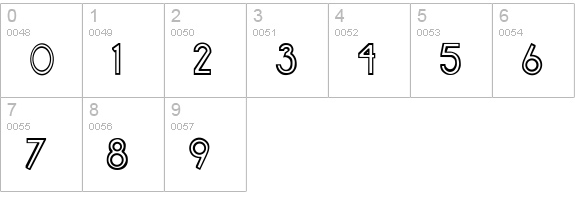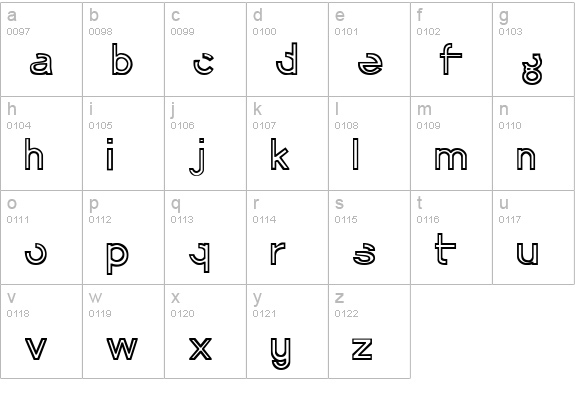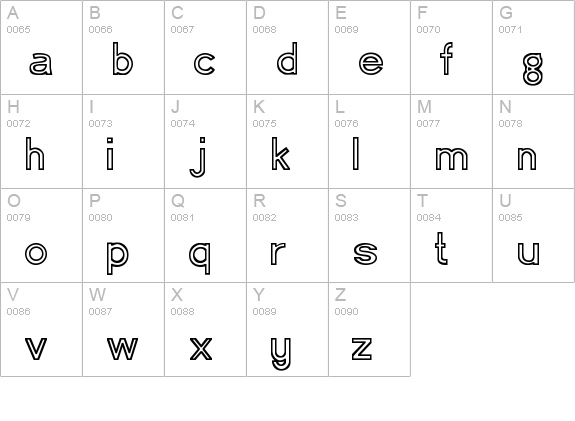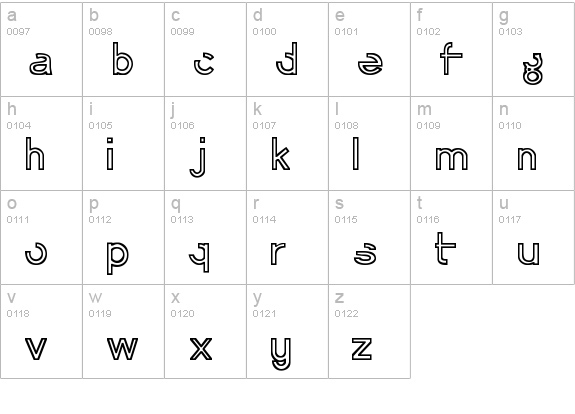
Erasure Font Details
Erasure font is a stylish and modern typeface that offers a unique blend of elegance and simplicity. Its sleek lines and geometric shapes make it perfect for a wide range of design projects, from branding to editorial design. The font's clean and minimalist aesthetic gives it a contemporary feel that will elevate any design it is used in. What sets Erasure font apart is that it is not only visually appealing but also free to download. You can easily access this versatile font at FontsMarket.com, making it a convenient choice for designers and creatives looking to add a touch of sophistication to their work without breaking the bank. Download Erasure font today and unleash your creativity with this sleek and stylish typeface.